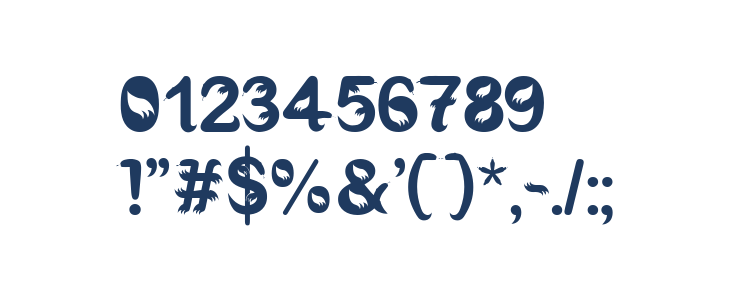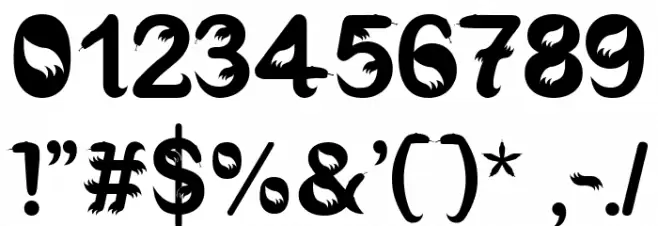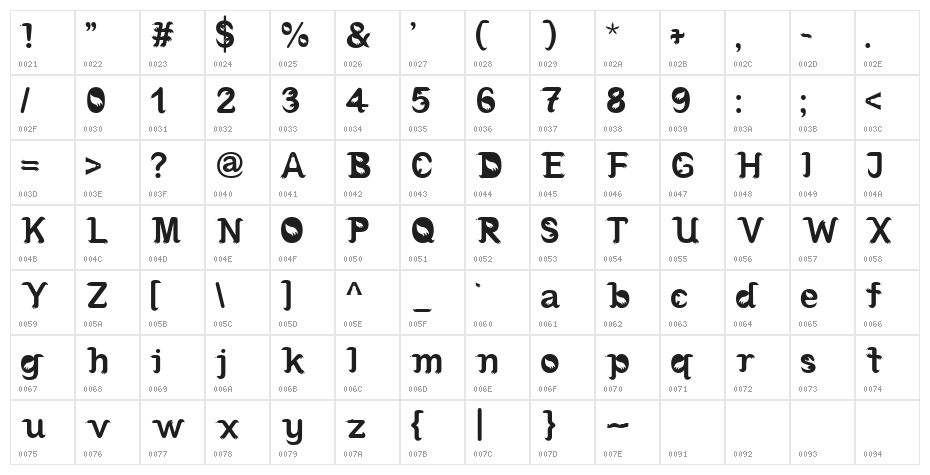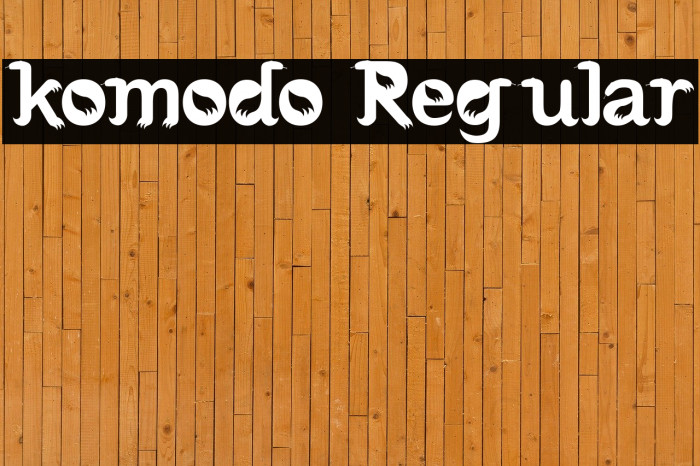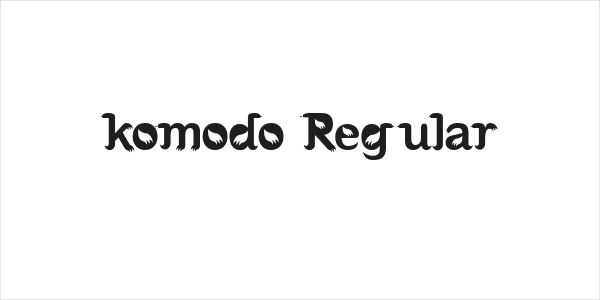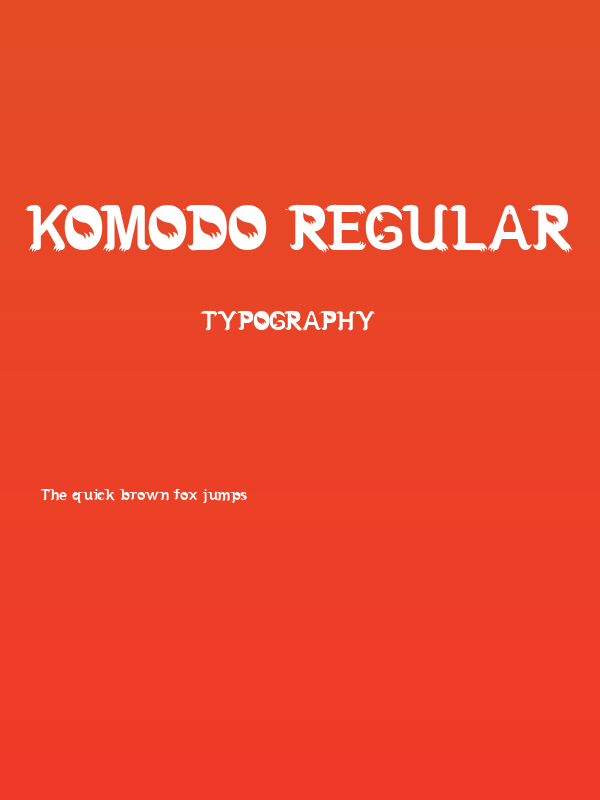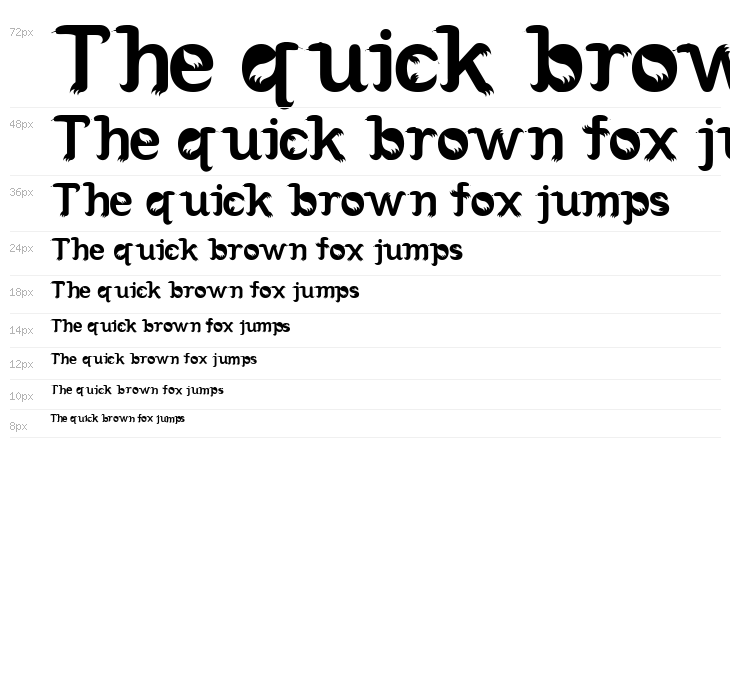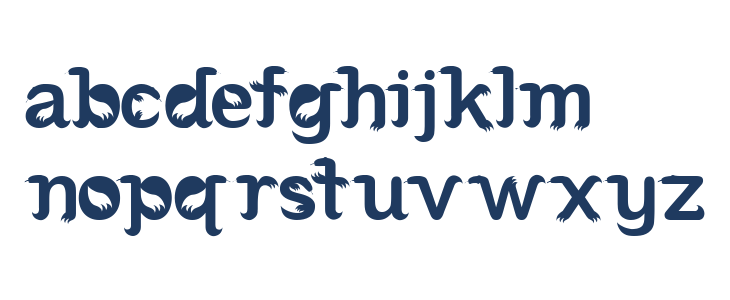
komodo Regular Font
komodo Regular Description
This font features a unique and playful design with a bold and dynamic appearance. Each character is adorned with claw-like extensions, giving it a wild and adventurous feel. The strokes are thick and consistent, contributing to a strong visual impact. The uppercase and lowercase letters maintain a cohesive style, while the numbers and special characters are designed to match the overall theme. This font is ideal for projects that require a touch of creativity and boldness, making it suitable for eye-catching headlines or themed designs.
A bold, adventurous font with claw-like extensions for a wild look from Decorative fonts.
- Proposed Projects: Ideal for themed posters, adventure branding, children's book covers, and creative event invitations.